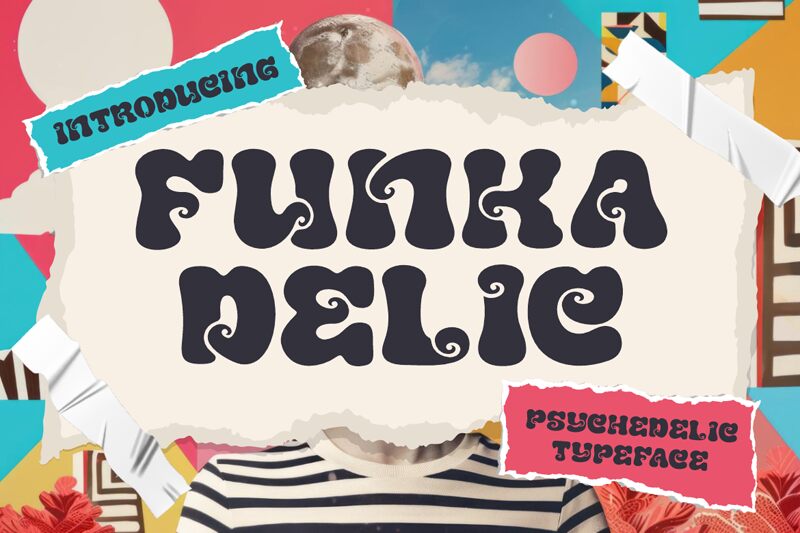
Funkadelic font family is a free font collection consisting of 2 font styles designed by PutraCetol Studio. It celebrates the expressive visual language of the 1970s with combination of round shapes and fluid forms. Exploring every letter is a pleasant visual journey of its own too as each character comes with its own whimsical impression. With a funky and psychedelic groovy look, Funkadelic will guarantee to leave a bold impression with an energetic vibe.
Not many projects won’t benefit from the use of this font especially if they are culture-related, art-related, or music-related. To get specific, use Funkadelic font for funky posters, music album covers, stylish blog headlines, pop-up social media posts, or memorable logo designs. This retro letter design will work seamlessly for T-shirts, packaging, branding, postcards, book covers, banner ads, and more.